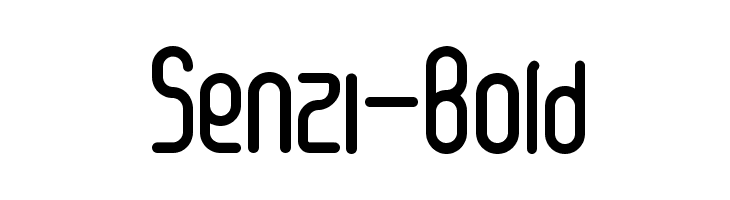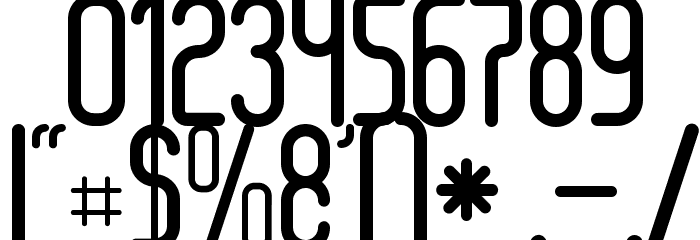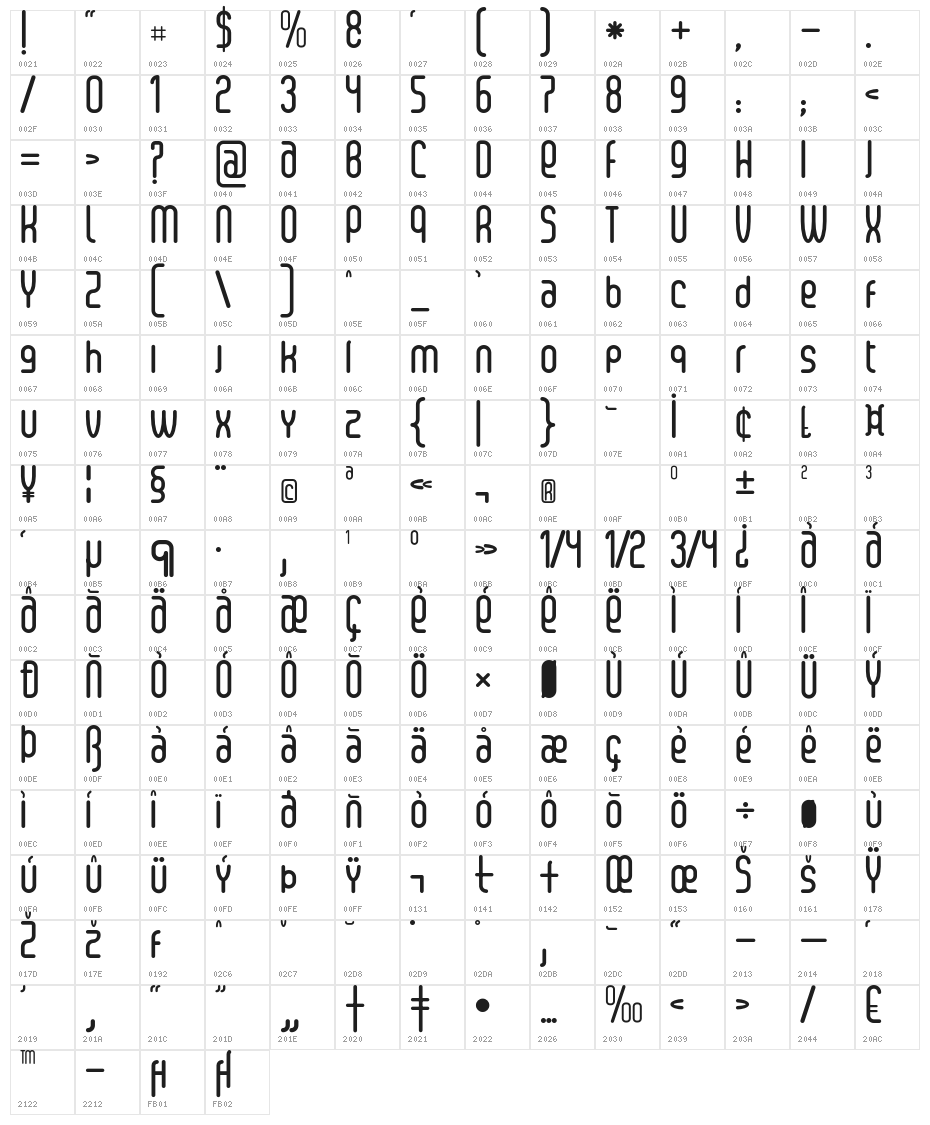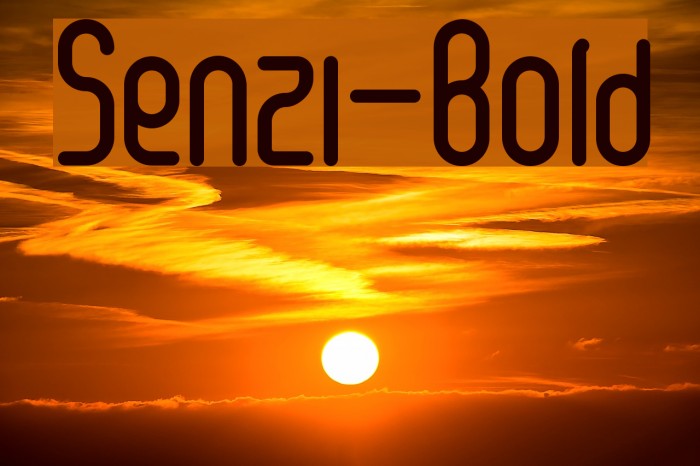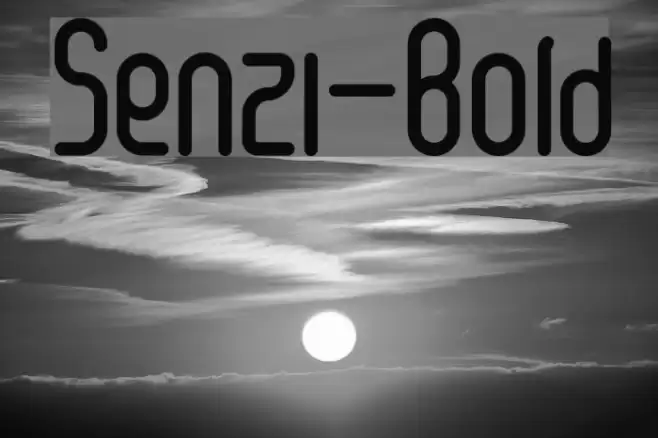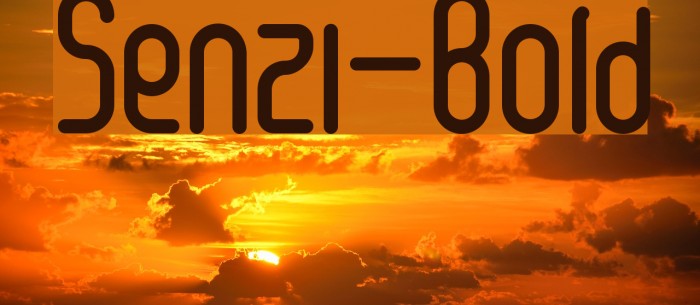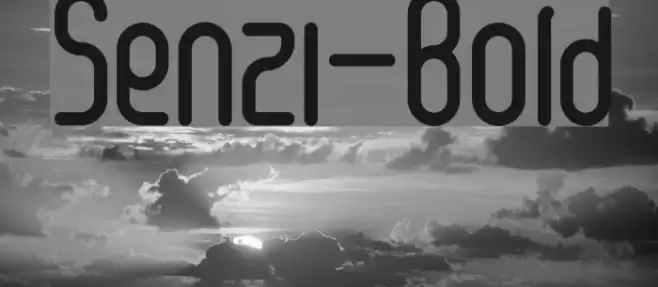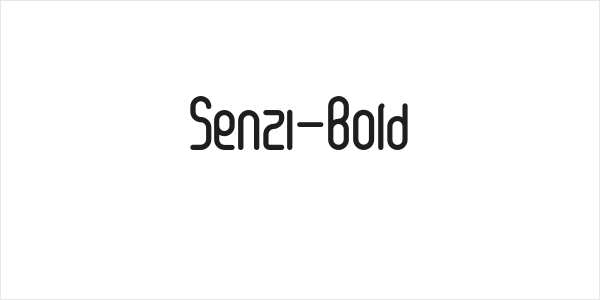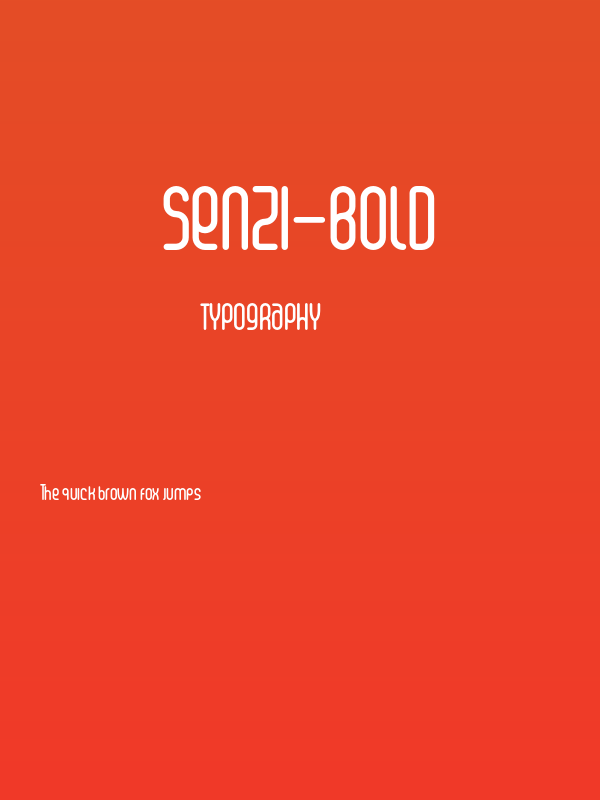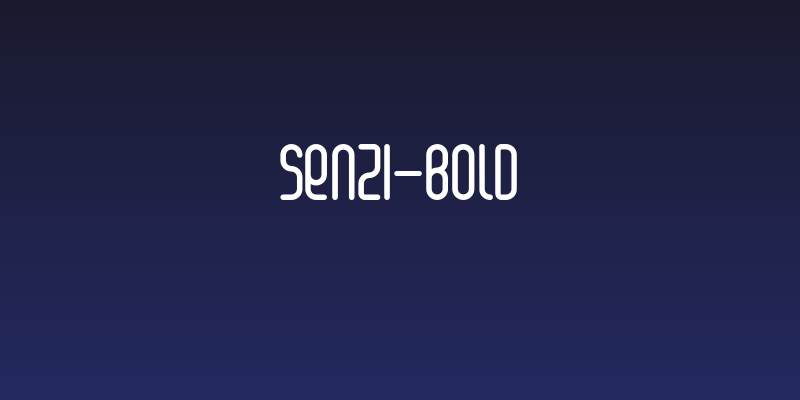
Senzi-Bold Font
Senzi-Bold Description
This font features a bold and modern design with rounded edges and a geometric structure. The characters are tall and narrow, giving a sleek and contemporary appearance. The uniform stroke width across all characters provides a clean and consistent look, making it ideal for digital and print media. The font's rounded terminals and smooth curves add a friendly and approachable feel, while maintaining a professional and polished aesthetic. Its unique style makes it stand out, yet it remains highly legible, even at smaller sizes. The numerals and special characters are designed to match the overall style, ensuring a cohesive look across all text elements.
| Use Case | Headlines, Logos, Digital Media |
| Proposed Projects | Ideal for branding, advertising, digital media, and modern web design projects. |